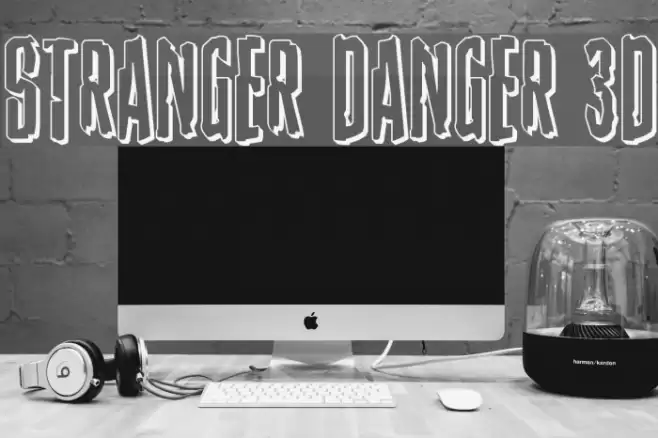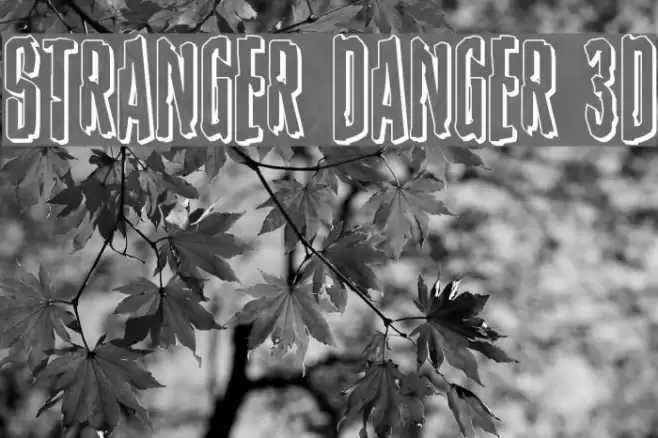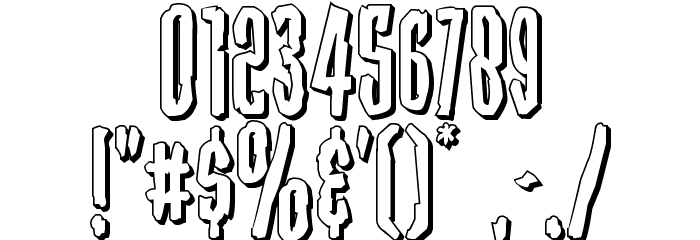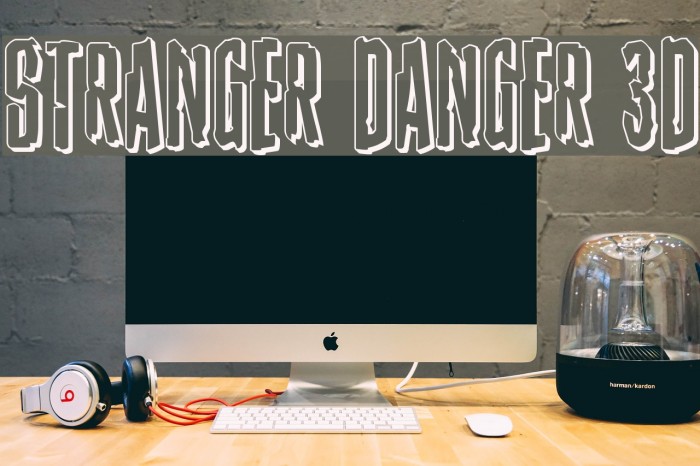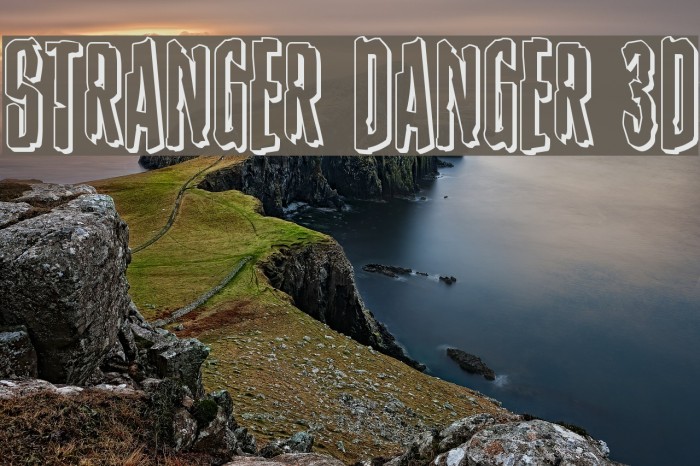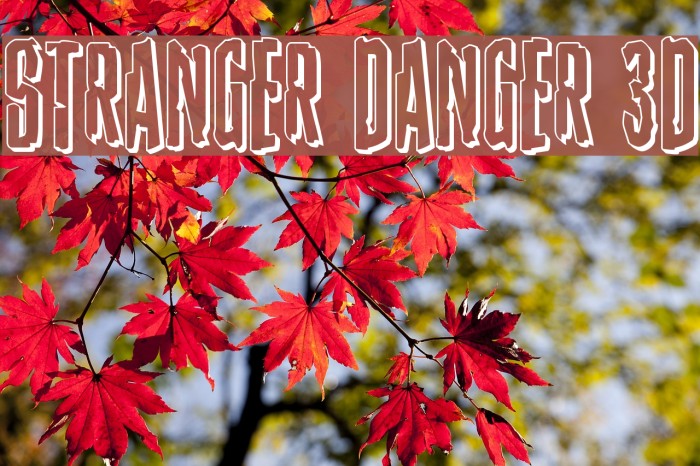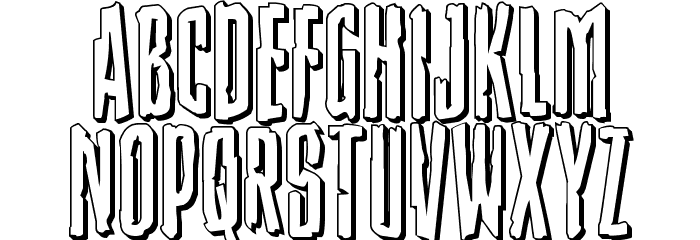
Stranger Danger 3D Font
Stranger Danger 3D Description
This font features a bold, three-dimensional style with a strong, impactful presence. The characters are uppercase and have a shadow effect that gives them a sense of depth and volume. The edges are sharp and angular, contributing to a modern and edgy look. The font is highly decorative, making it suitable for attention-grabbing headlines or titles. Its unique design stands out, making it ideal for projects that require a bold statement. The spacing between characters is tight, enhancing the compact and cohesive appearance of the text.
A bold, 3D decorative font with sharp edges and a shadow effect from Uncategorized fonts.
- Proposed Projects: Ideal for posters, logos, video game graphics, and any project needing a bold, standout typeface.
- Character Spacing: Tight